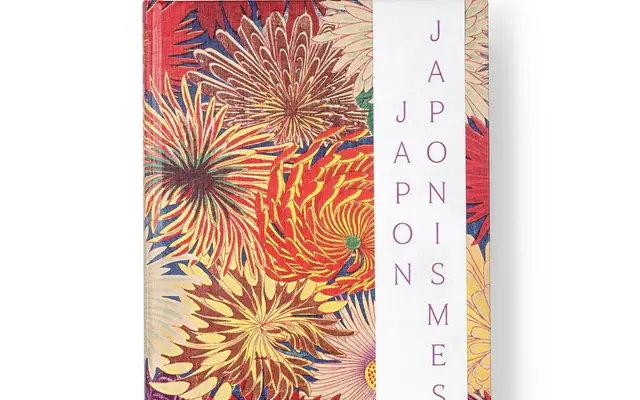
Tongari
A is for · Émilie Rigaud
A high-contrast serif in two optical variants, named after a Japanese word for sharp-pointed, with seven weights and matching italics throughout.
Designed by Émilie Rigaud, Tongari spans a Text family with tempered contrast for continuous reading and a Display family that revives the original spirit of the drawings, with stronger contrast, a higher x-height and sharper terminals. The Display cut includes alternate forms such as a double-storey g with an open tail, making it well-suited to magazine headlines and exhibition graphics. The family has been used in practice for exhibitions including a J.R.R. Tolkien show at the Bibliothèque nationale de France.
Tongari features strong stroke contrast and sharp, pointed terminals in its Display variant, placing it firmly in the high-contrast serif tradition. The Text variant moderates these features for continuous reading, but the overall design language is defined by its sharp, calligraphically inflected structure.